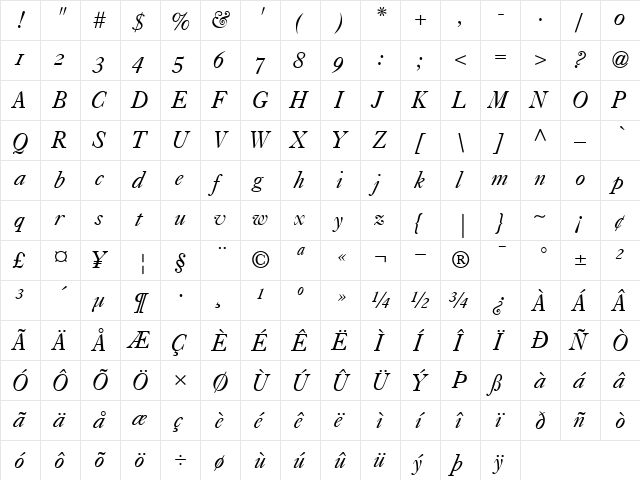
Caslon540OldstyleFigures RomanItalic
Design Context for Caslon540OldstyleFigures Typeface
Caslon540OldstyleFigures carries the refined structure of traditional serif typography, with bracketed terminals and considered proportions that communicate credibility and craft. The dynamic lean of this cut emphasises speed and emphasis in any layout.
Pro Tip: Use Caslon540OldstyleFigures for editorial body copy and considered headline work. Pair with a neutral sans for UI elements or captions to create a classic hierarchy.